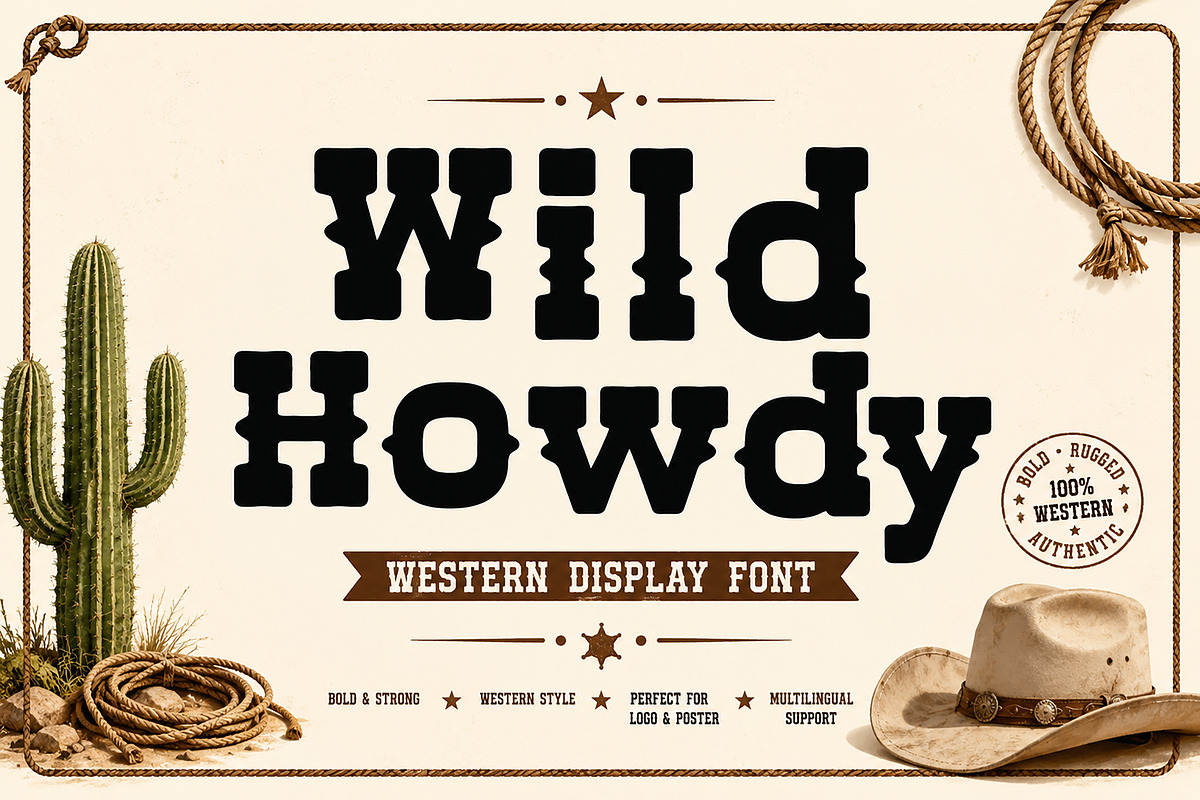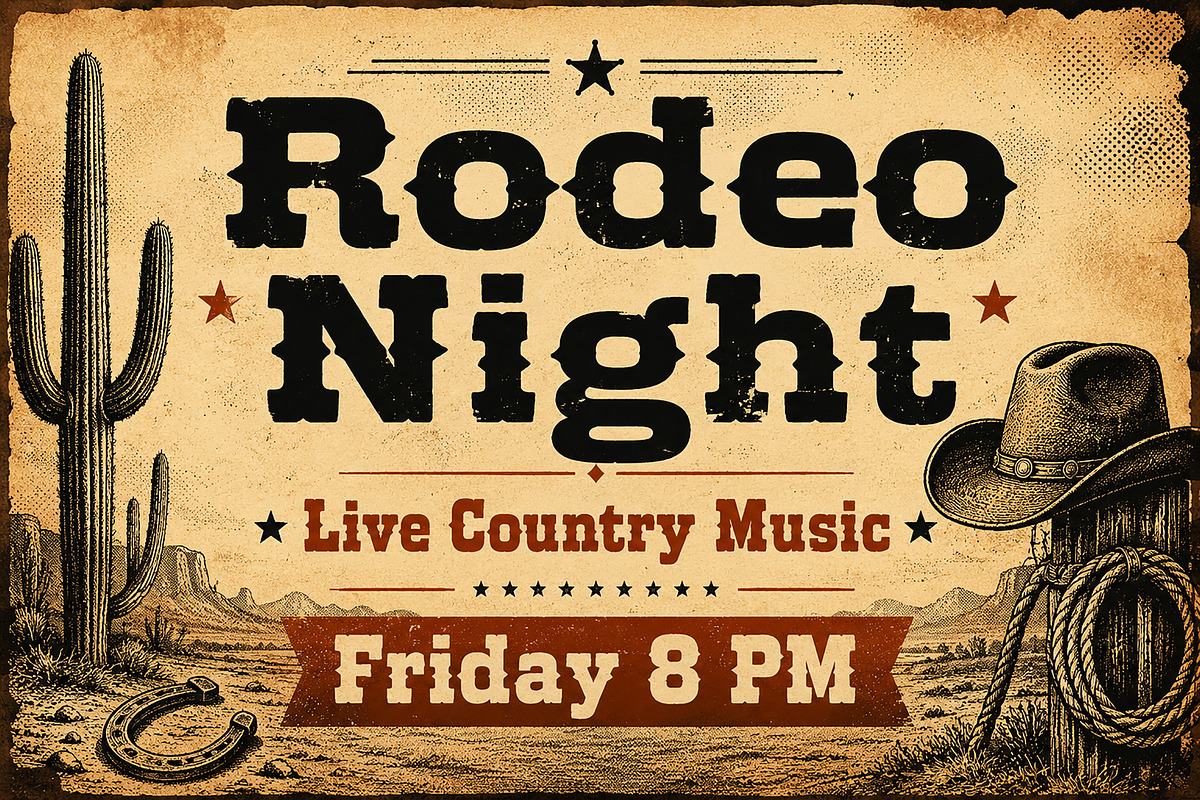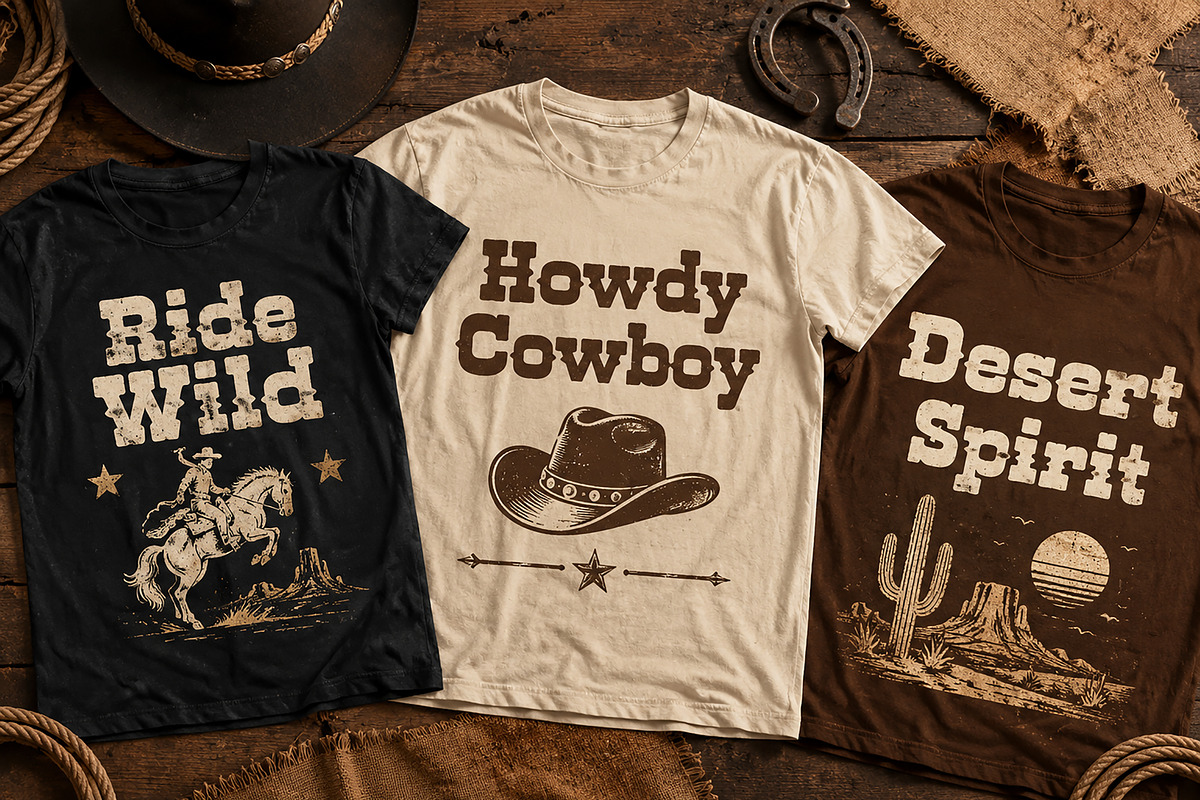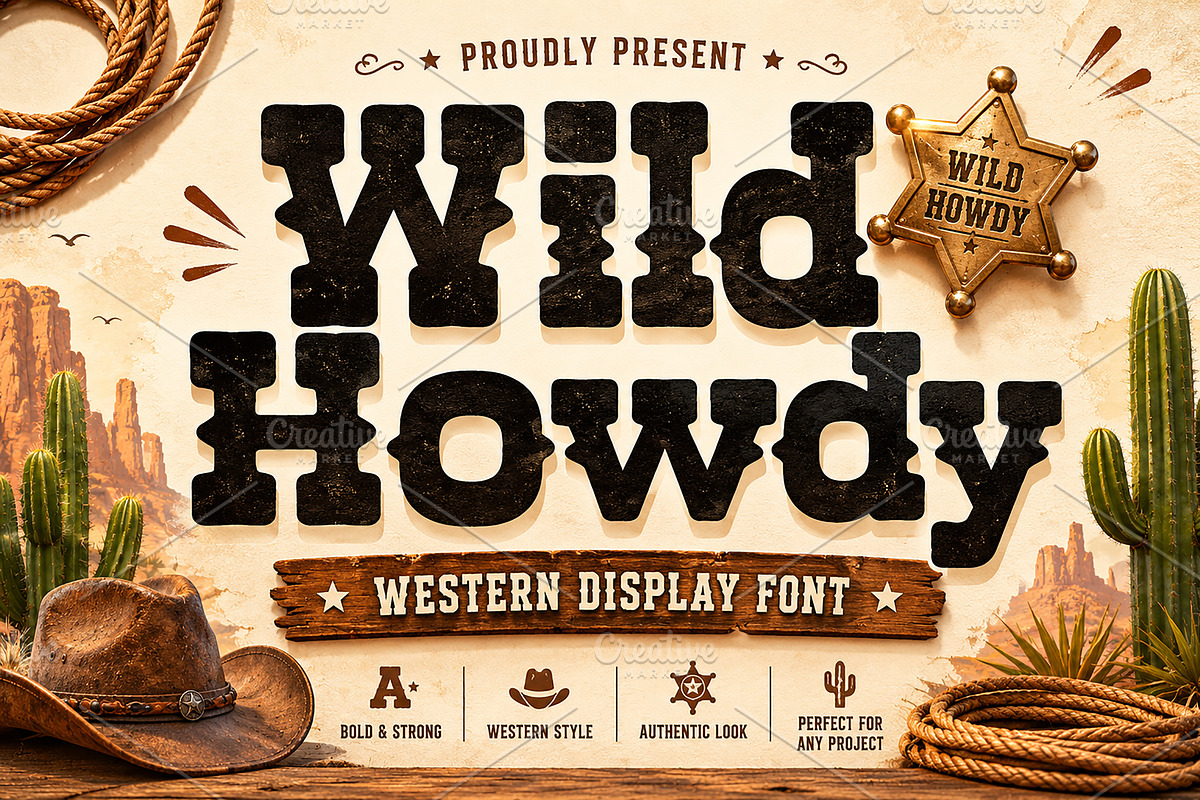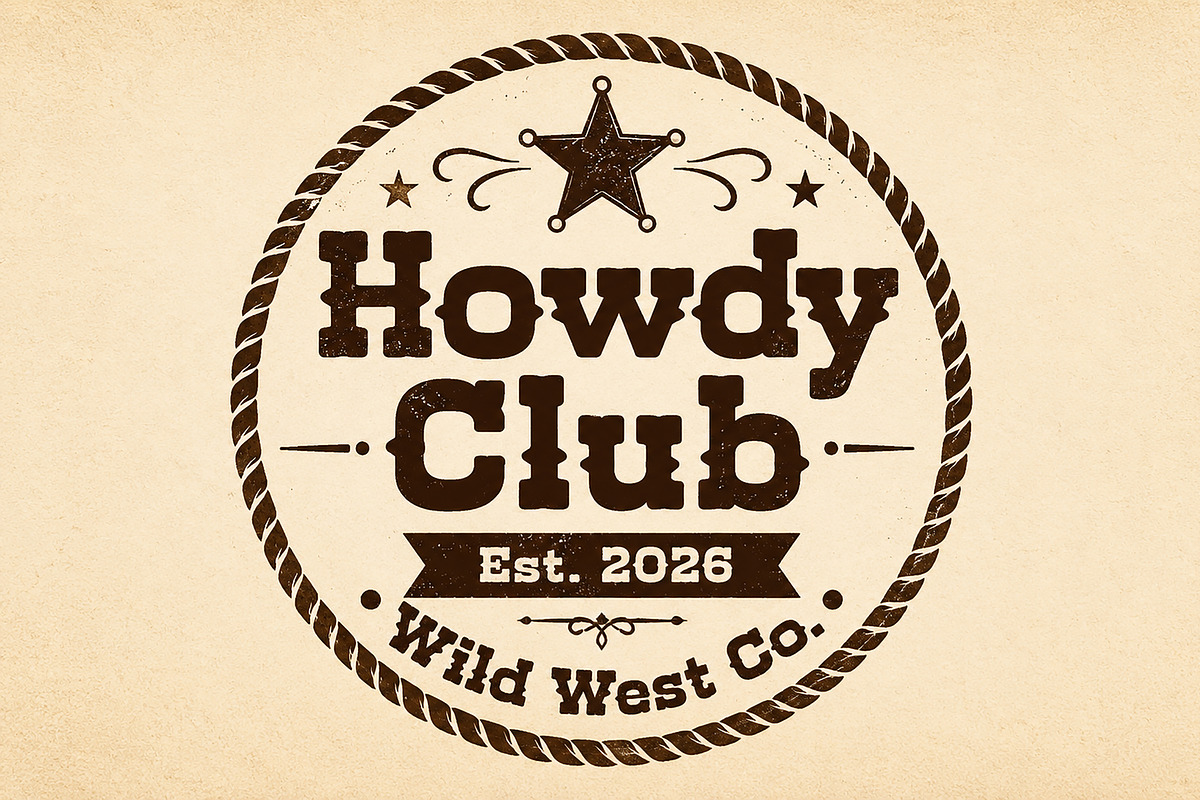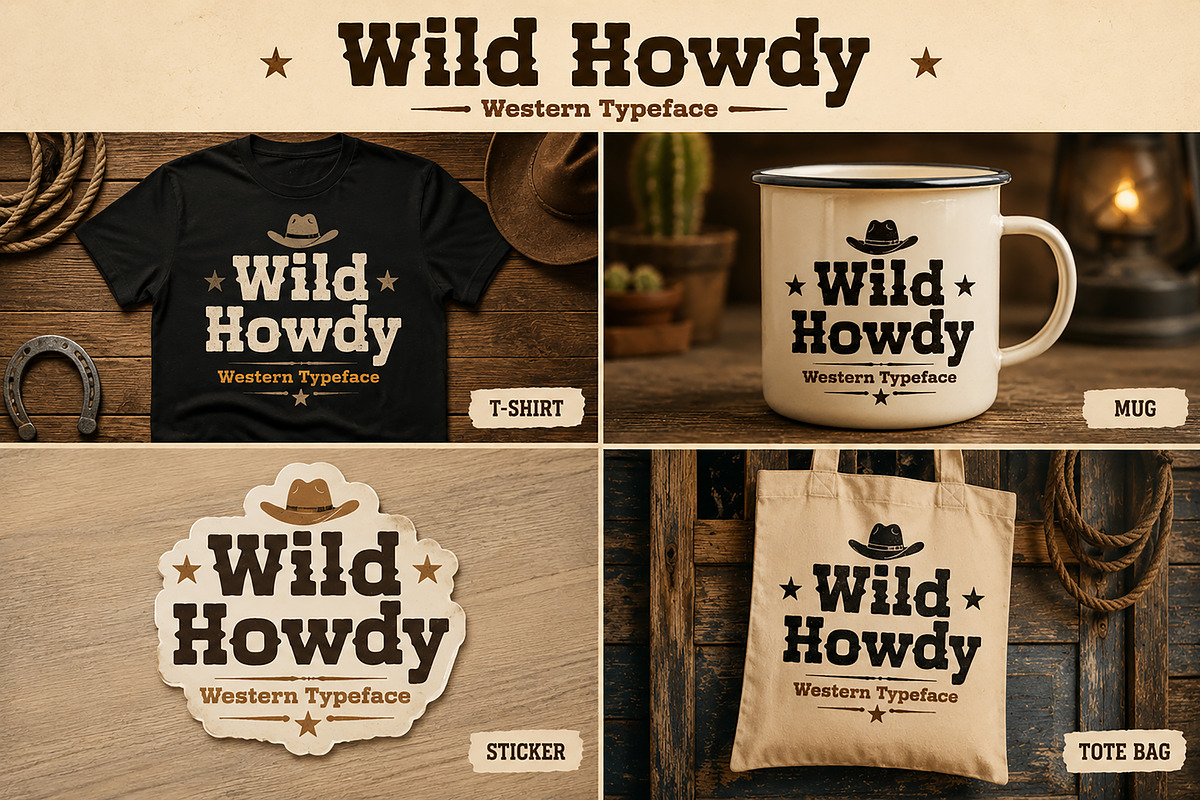
Wild Howdy
Wild Howdy – Western Display Font
Wild Howdy is a bold western display font inspired by vintage cowboy culture, rodeo posters, saloon signage, and rustic Americana design. Featuring strong slab-style letterforms with a playful handcrafted western vibe, this typeface delivers an authentic wild west character perfect for eye-catching branding and retro-themed projects.
Whether you’re designing logos, posters, apparel, packaging, stickers, or social media graphics, Wild Howdy adds a rugged and adventurous touch that instantly stands out. This font is ideal for western branding, country events, rodeo merchandise, print-on-demand products, and vintage-inspired creative work.
Western & Cowboy Branding
Rodeo Posters & Event Flyers
Vintage Logos & Badges
T-shirt & Apparel Design
Saloon Signage
Rustic Packaging & Labels
Book Covers & Stickers
Print-on-Demand Products
Merchandise & Crafts
Uppercase Characters
Bold Western Style
Vintage Cowboy Inspired
Strong Display Typeface
Perfect for Logos & Headlines